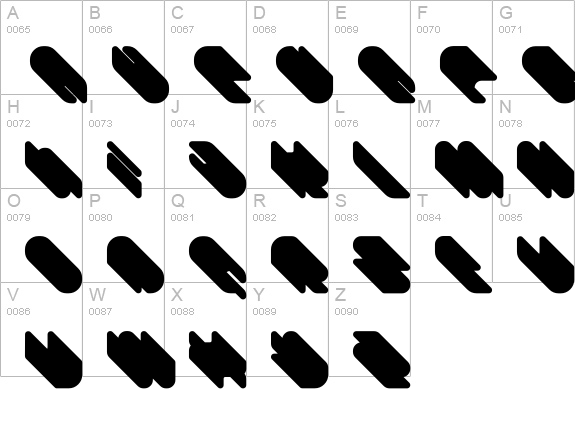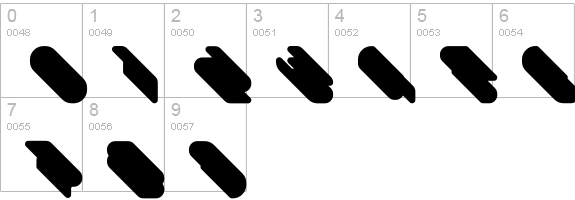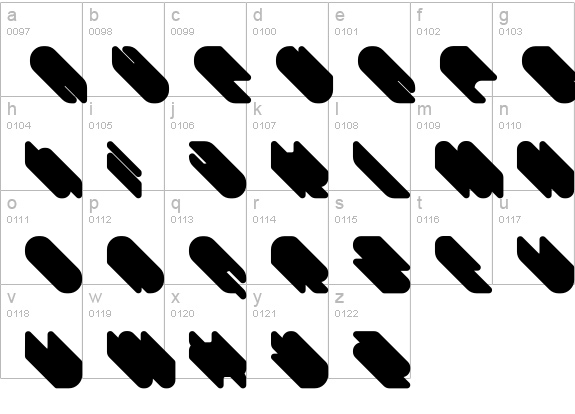
DS Popporn3D Font Details
The DS Popporn3D font is a fun and playful typeface that adds a touch of whimsy to any design project. With its 3D effect and bold, eye-catching style, this font is sure to make a statement. Perfect for posters, logos, and branding materials, DS Popporn3D is versatile and easy to read. What's even better is that this font is available for free download at FontsMarket.com. Simply head over to the website and start using this unique font in your projects today. Don't miss out on the opportunity to add a pop of personality to your designs with DS Popporn3D!